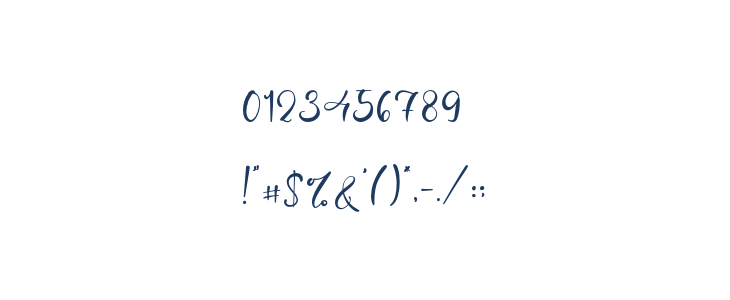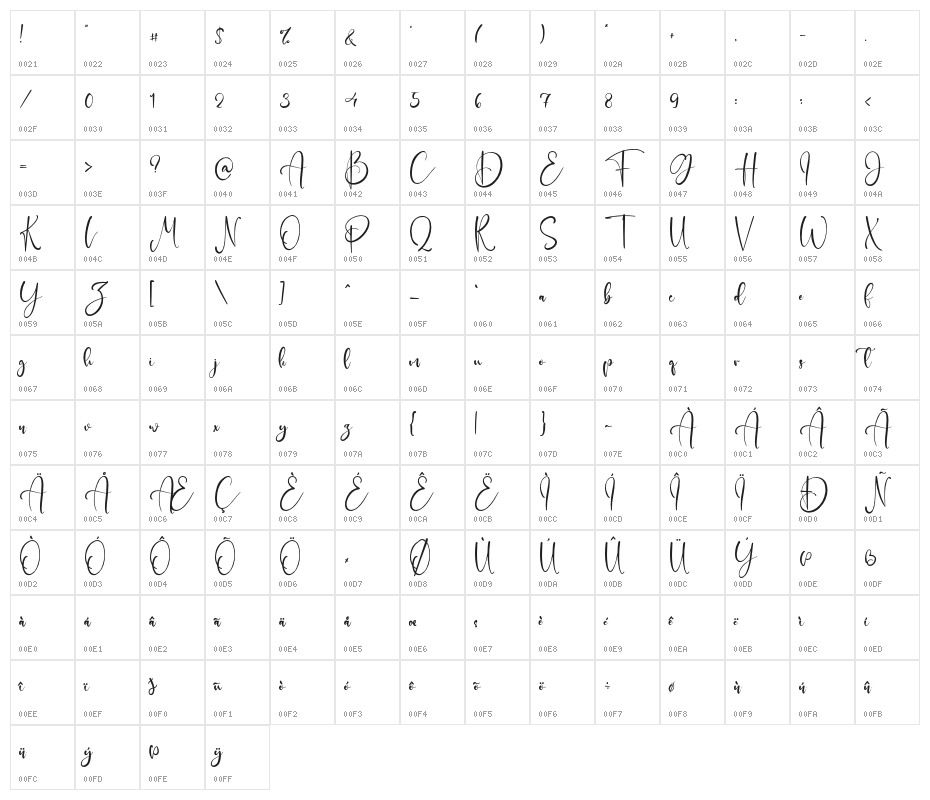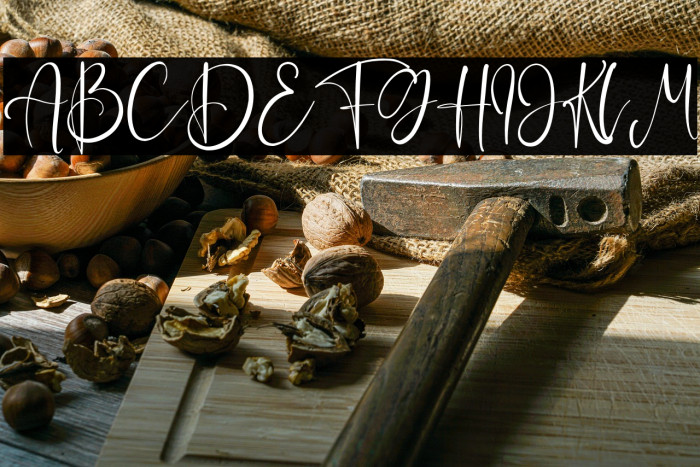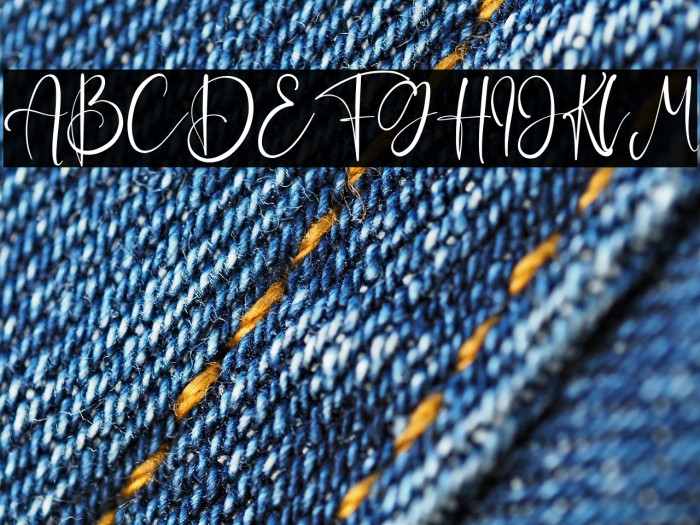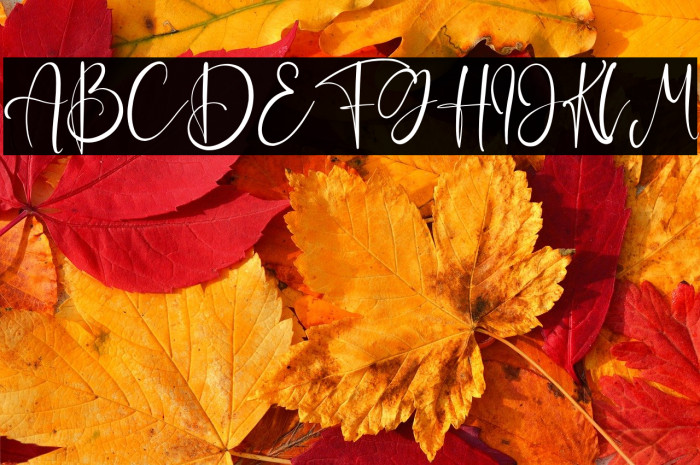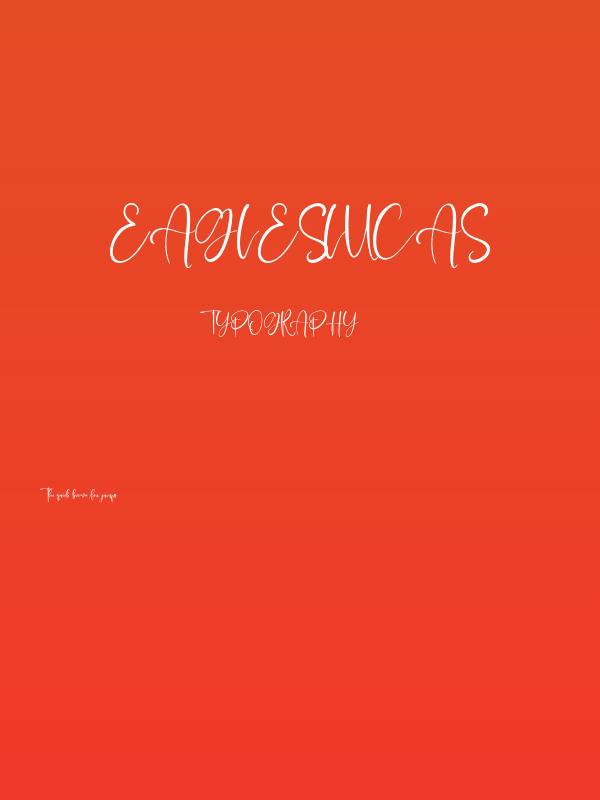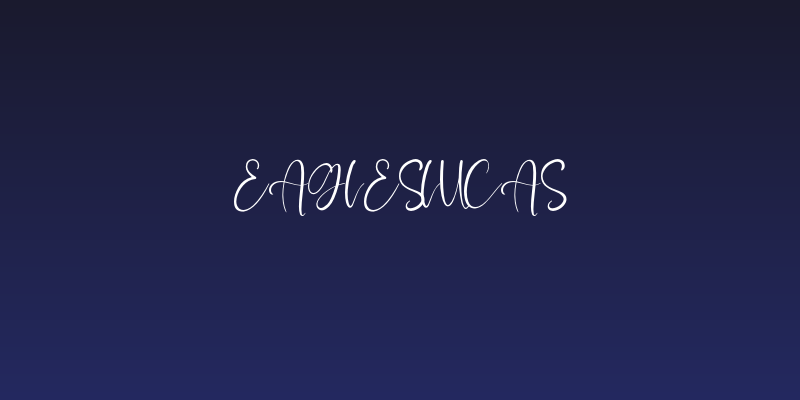
EaglesLucas Font
EaglesLucas Description
This font features a flowing, cursive style with elegant loops and flourishes, giving it a sophisticated and artistic appearance. The uppercase letters are tall and slender, with intricate connections that create a sense of movement and grace. The lowercase letters maintain a consistent style, with smooth curves and a slightly playful touch. The numerals are distinct and maintain the same artistic flair, making them easily readable while still fitting the overall aesthetic. Special characters are thoughtfully designed to complement the letterforms, ensuring a cohesive look across all text. This font's unique style makes it ideal for creative projects that require a touch of elegance and personality.